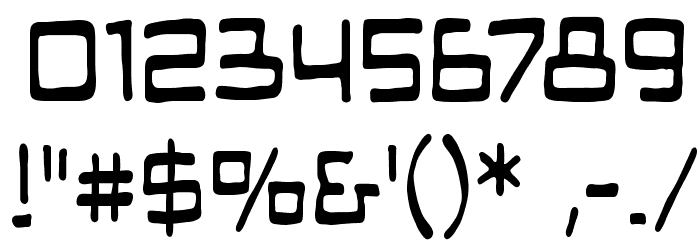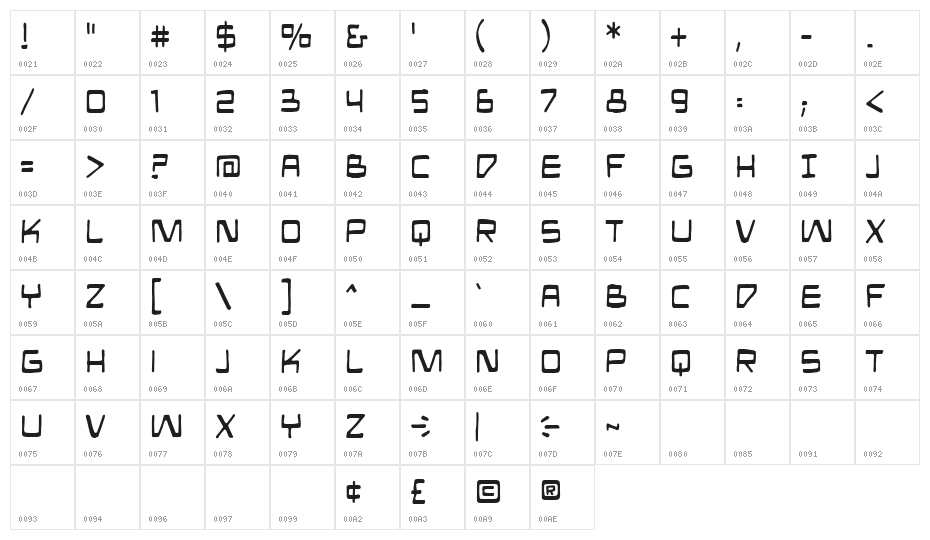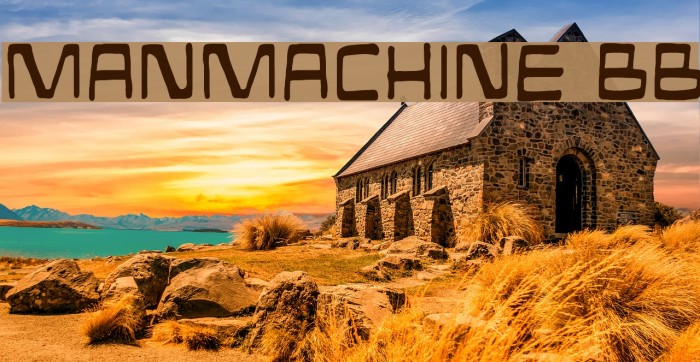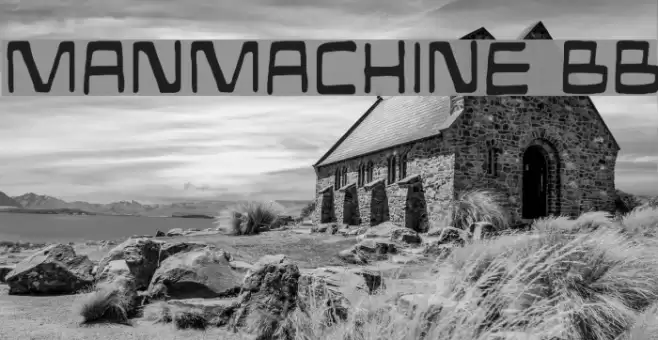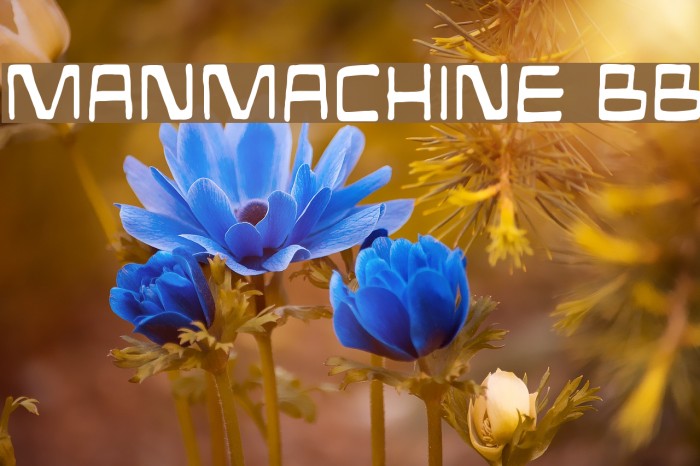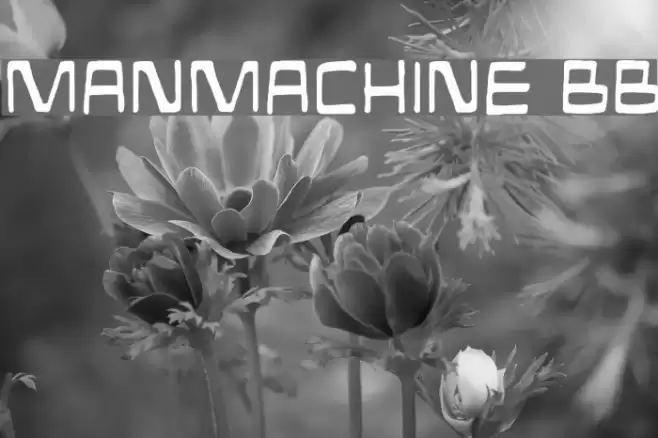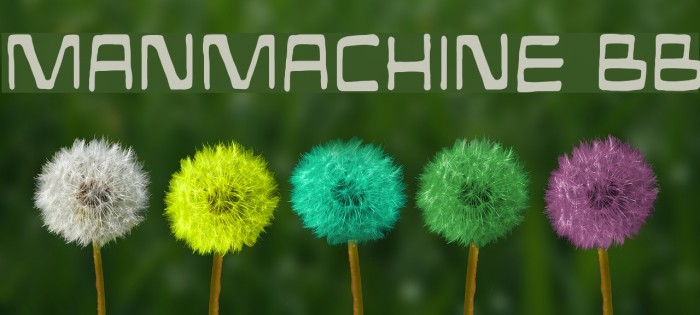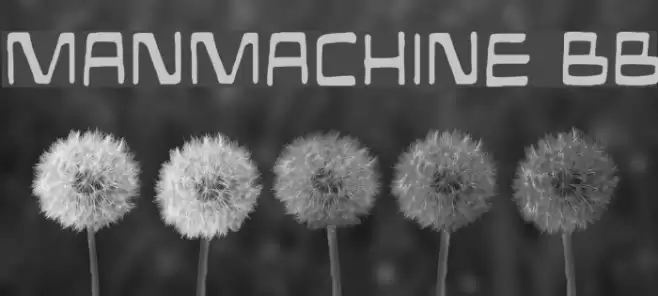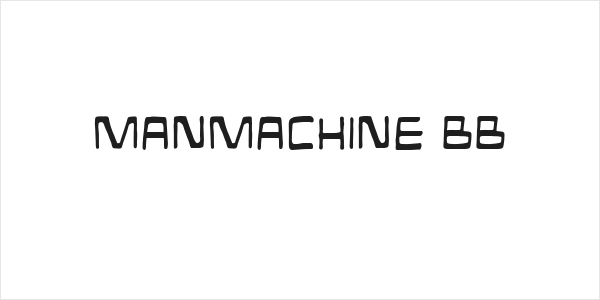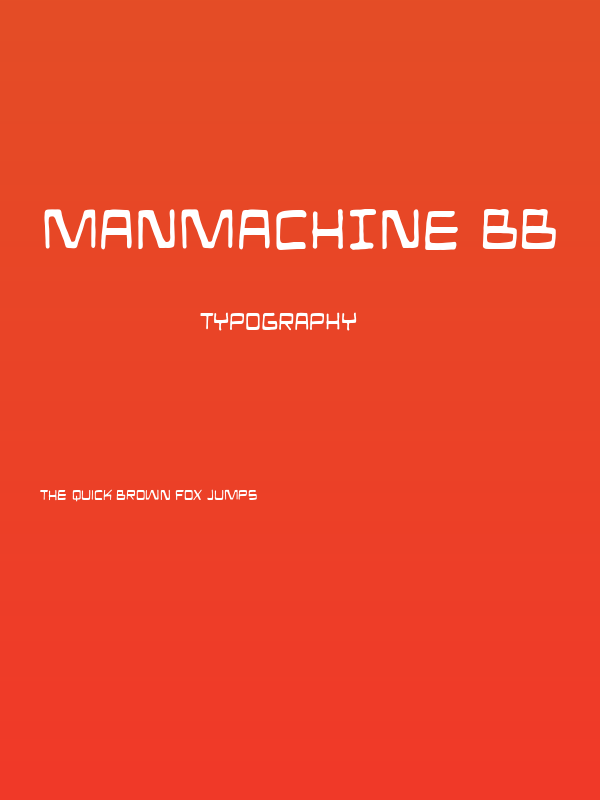
ManMachine BB Font
ManMachine BB Description
This font features a bold, futuristic design with a distinctly mechanical feel. The characters are uniformly structured with rounded edges and a slightly condensed form, giving it a compact appearance. The uppercase letters are consistent in height, while the lowercase letters maintain a similar width, ensuring readability. Numbers and special characters follow the same design principles, making them easily distinguishable. The overall style is modern and tech-inspired, suitable for projects that require a sleek, industrial look.
| Proposed Projects | Ideal for technology branding, sci-fi themed projects, video game interfaces, and modern advertising campaigns. |